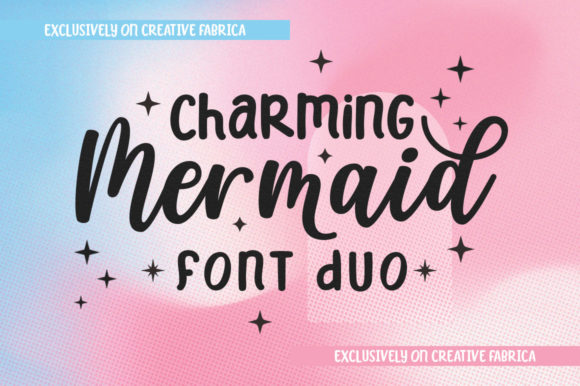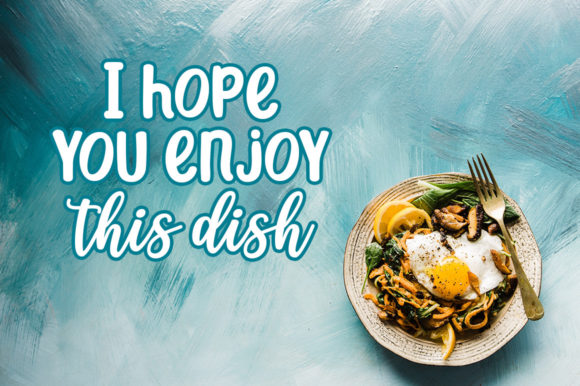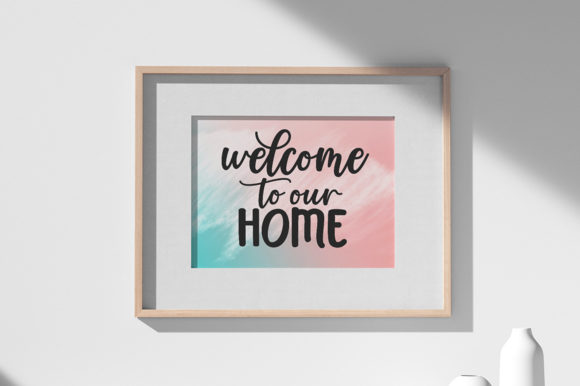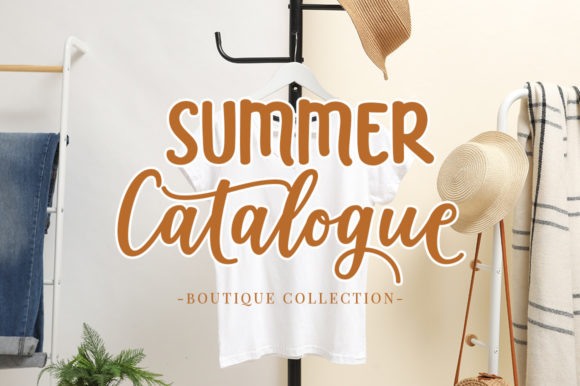
About Charming Mermaid Font
Charming Mermaid consists of two fonts designed to complement each other perfectly (script and sans serif). Together or apart, these fonts are ideal for adding a chic and cheery touch to your crafts. This font is PUA encoded which means you can access all glyphs and swashes with ease!